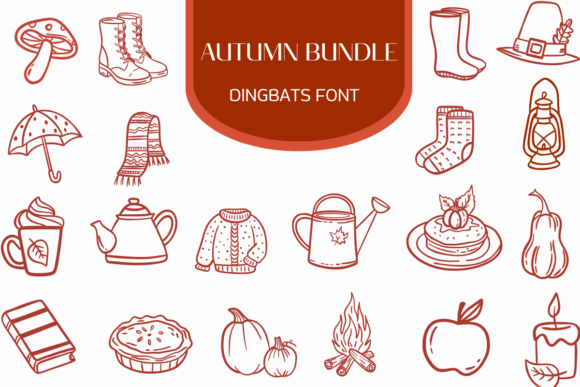
Cozy Up with the Autumn Bundle Dingbats Font
As designers, we’ve all been there – stuck on a project, searching for that perfect font to capture the essence of a season. I recall working on a fall-themed invitation, struggling to find a typeface that conveyed the warmth and coziness of the season. That’s when I stumbled upon the Autumn Bundle Dingbats Font, and it instantly became my go-to. In this article, we’ll dive into the world of this delightful font, exploring its features, uses, and some helpful tips and tricks.
A Personal Review: What I Love
Here’s what makes the Autumn Bundle Dingbats Font a standout in my book:
- ✨ Hand-drawn illustrations: Each character is meticulously crafted to bring the essence of fall to life, from mushrooms to knitted socks.
- ✅ Versatility: With a wide variety of autumn illustrations, you can use this font in numerous projects, from invitations to social media graphics.
- 🌿 Nostalgic style: The delicate linework and nostalgic feel evoke a sense of crisp air, golden leaves, and festive gatherings.
While the Autumn Bundle Dingbats Font is an excellent choice, there are a few things to keep in mind:
- 🤔 Glyph limitations: As a dingbats font, it doesn’t feature traditional letters. You’ll need to get creative with your design and use the provided illustrations.
- ⚠️ OpenType features: Some design platforms might not support OpenType features, which could limit the font’s capabilities.
The Autumn Bundle Dingbats Font was created with the intention of capturing the cozy essence of fall. The designer, inspired by the changing leaves and crisp air, set out to create a font that would bring warmth and seasonal charm to any project. Through hand-drawn illustrations and delicate linework, the font embodies the feeling of snuggling up with a warm cup of apple cider on a chilly fall evening.
Q: What type of projects can I use the Autumn Bundle Dingbats Font for?
A: The Autumn Bundle Dingbats Font is perfect for fall-themed projects, such as invitations, social media graphics, branding, and more.